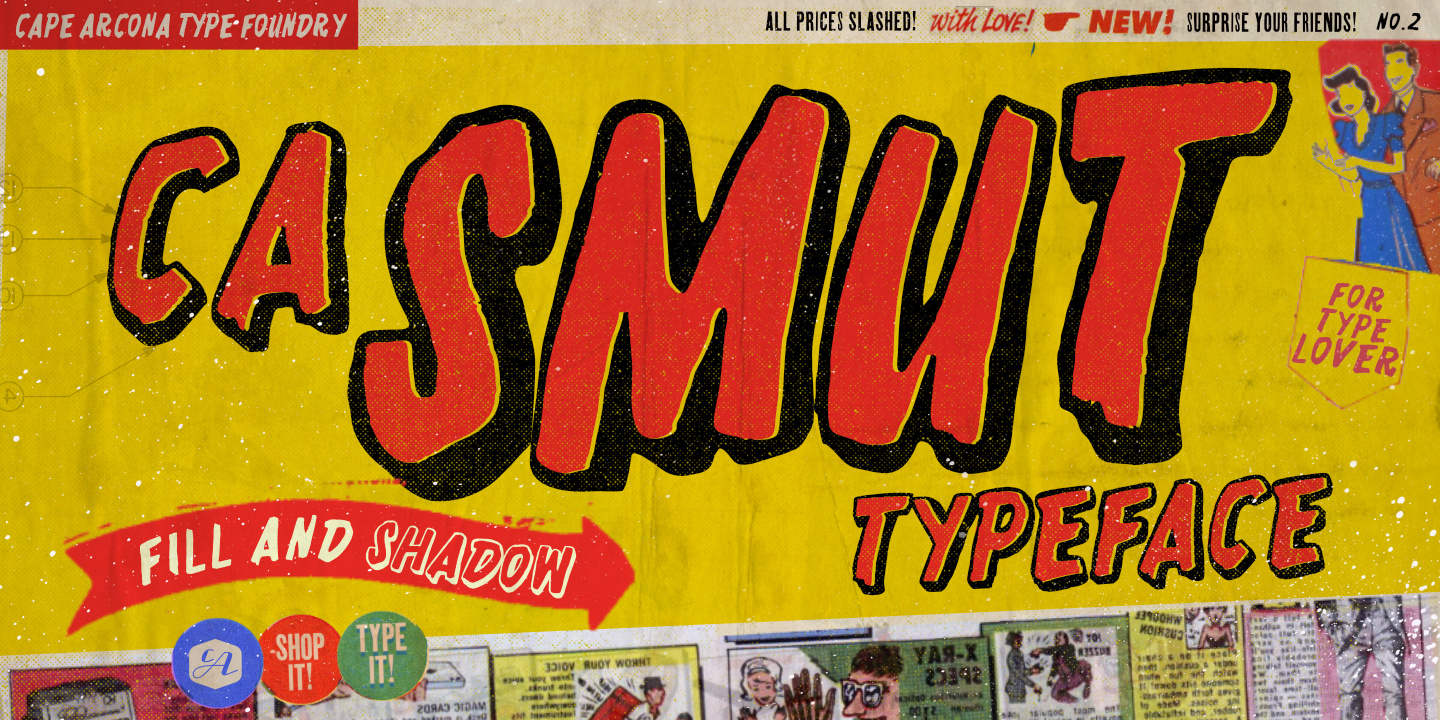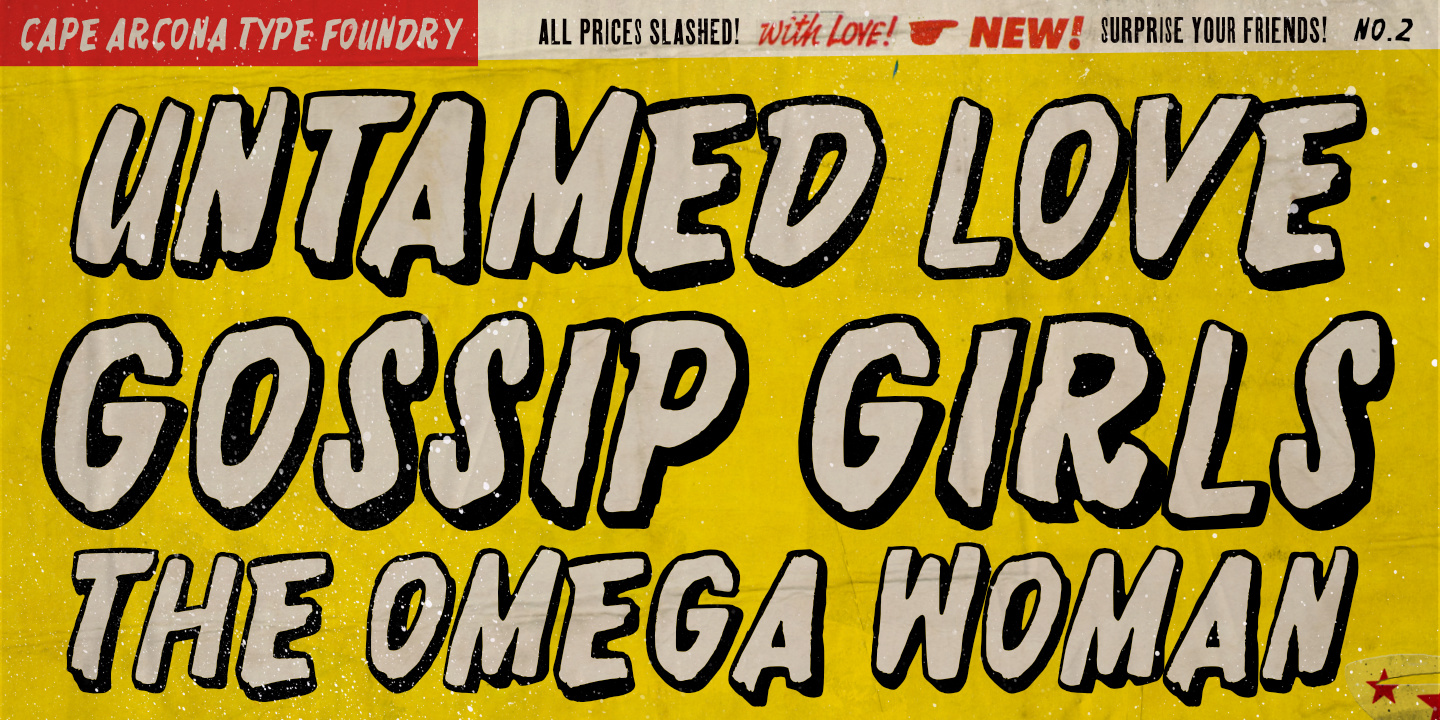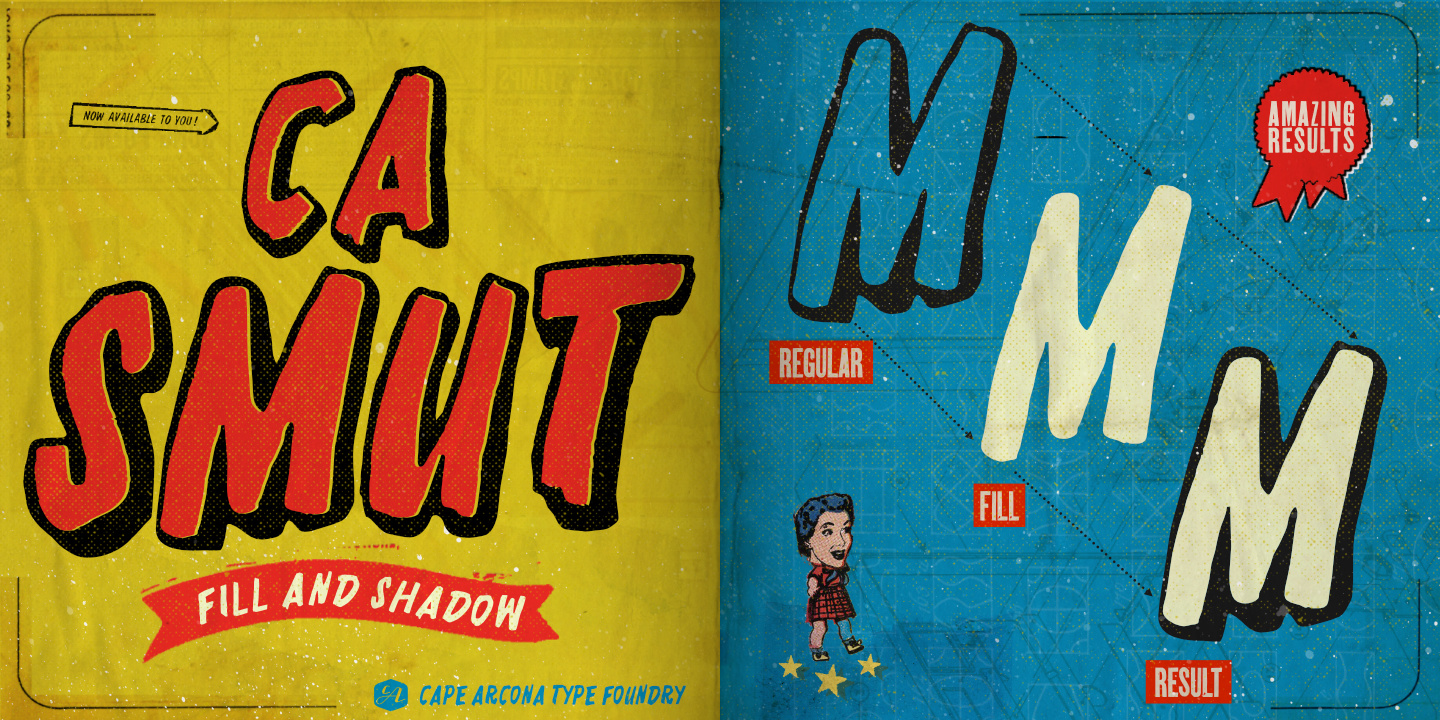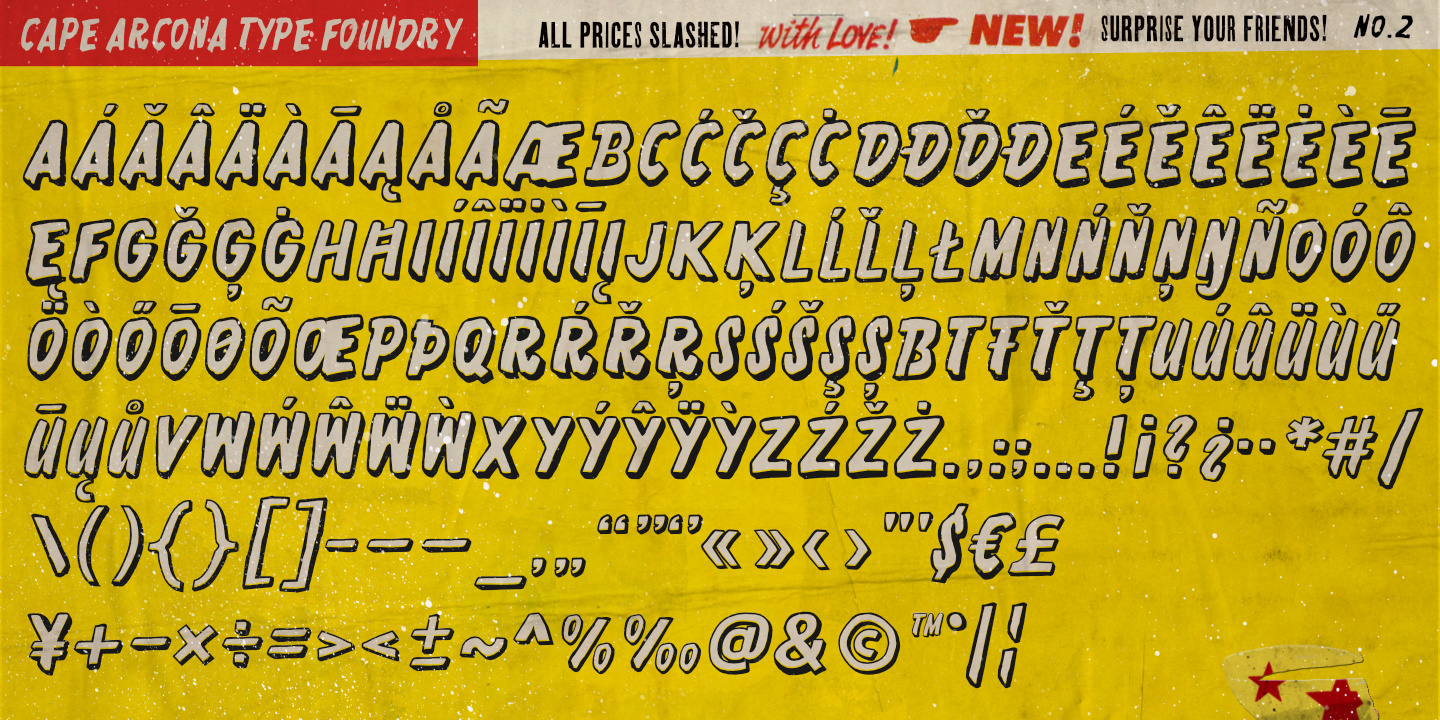
Occasionally, the ugliest pets can be the cutest ones. And the dirtiest fonts can be the most charming ones. Like CA Smut, whose form draws inspiration from the bold, gritty advertising styles found in comic books of the 1950s and 1960s. It comes in two styles that can be stacked on top of each other: “Regular” is the shadow, while “Fill” is the filling. Create little masterpieces by playing with different colors, offset, or deviating tracking. You can even try to use the “Fill” style on its own, but do so at your own risk. The spacing and kerning are optimized for use with “Regular”, so be open-minded for surprising results.
If you ever had the intention to design a horror movie poster, there’s no way around CA Smut.